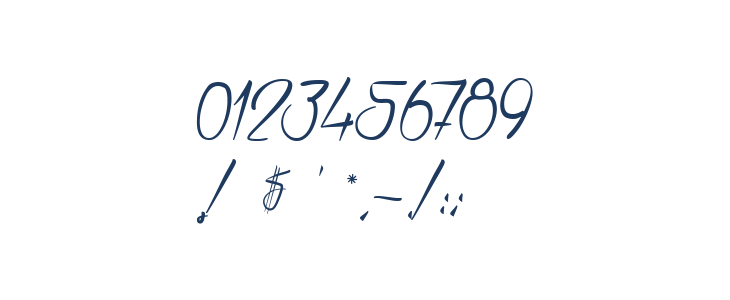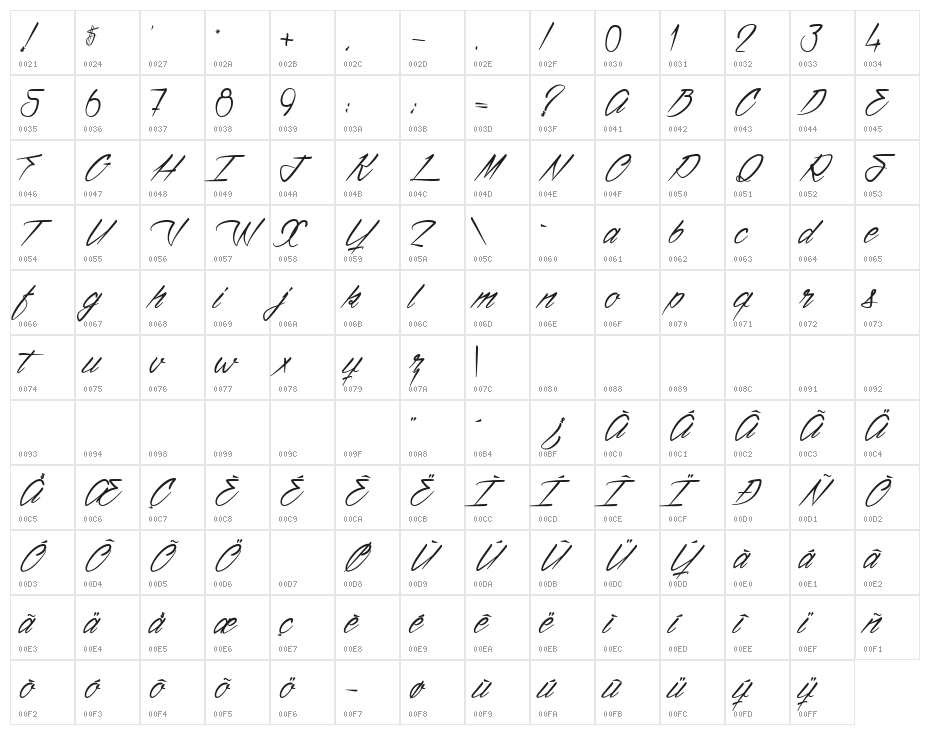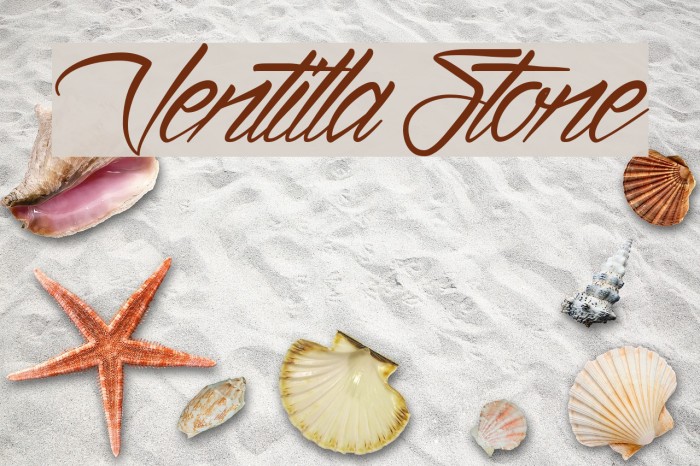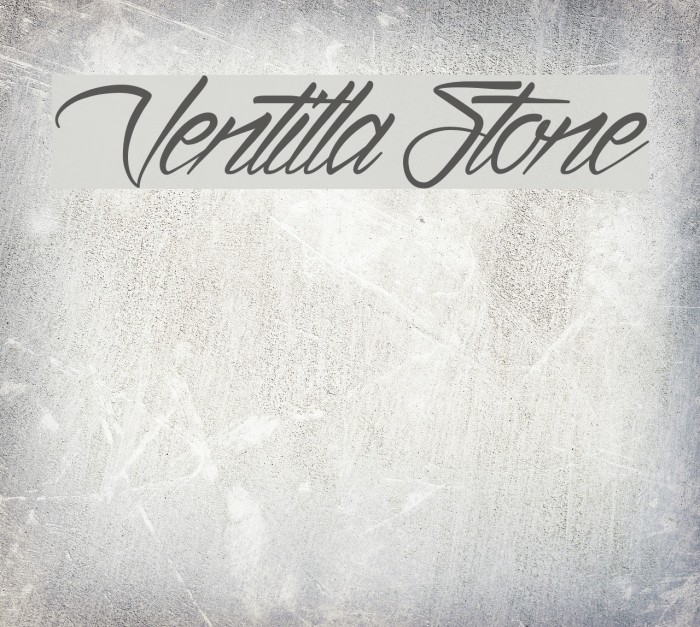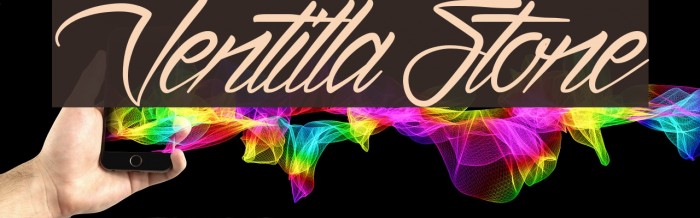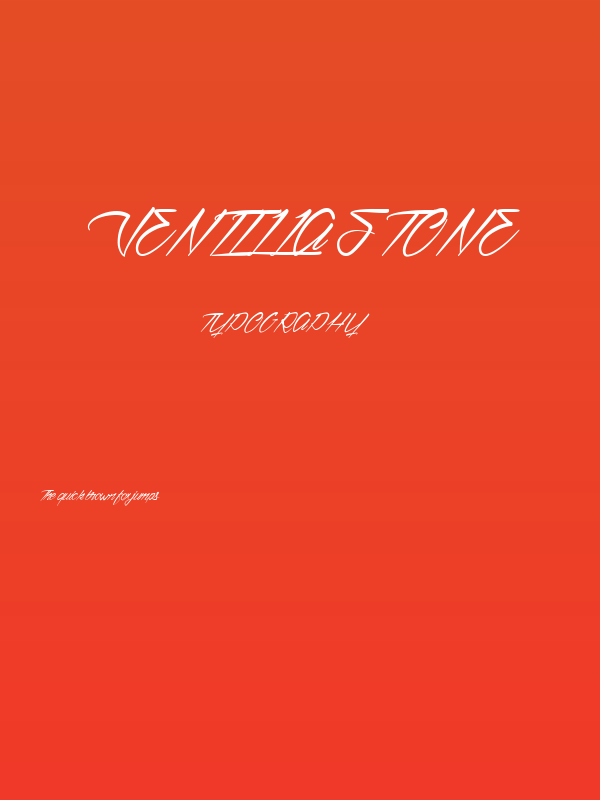
Ventilla Stone Font
Ventilla Stone Description
This font exhibits a dynamic and fluid script style, characterized by its elegant and flowing letterforms. The uppercase letters are bold and slightly slanted, giving a sense of movement and sophistication. The lowercase letters maintain a consistent slant, enhancing the cursive nature of the font. The numerals are uniquely styled, with a playful yet refined appearance. Special characters are integrated seamlessly, maintaining the overall aesthetic. This font's design is reminiscent of handwritten calligraphy, offering a personal and artistic touch.
| Overall Style | Elegant, Artistic |
| Proposed Projects | Ideal for wedding invitations, greeting cards, personal branding, and artistic projects requiring a touch of elegance. |